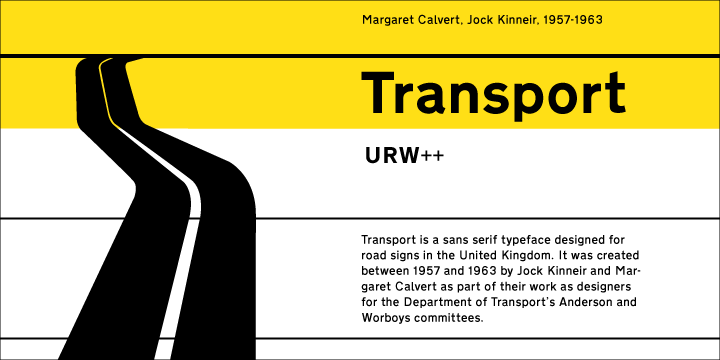
Transport Font is perfect for road signage systems, highway infrastructure, public transportation displays, airport wayfinding, municipal street signs, traffic management systems, government documentation, emergency services materials, urban planning projects, and navigation applications where maximum legibility and clarity are essential for public safety.
What makes Transport Font exciting is its scientifically designed letterforms that prioritize readability at high speeds and various viewing distances. This font features carefully calculated character spacing, optimized stroke weights, and distinctive letter shapes that ensure instant recognition even in challenging conditions. The extensive research behind its development makes it one of the most legible fonts ever created, with proven performance in real-world applications where clarity can be a matter of safety.
Transport Font family includes Light, Medium, and Heavy weights, each specifically calibrated for different viewing distances and applications. The family also features condensed variations for space-constrained situations, plus specialized versions for different sign types including motorway signs, local direction signs, and information boards. Each variant maintains optimal legibility while serving specific functional requirements.
Transport Font supports comprehensive character sets including numerals, punctuation, and symbols necessary for traffic signs and public information systems. The font's carefully engineered metrics ensure consistent spacing and alignment across different sizes and viewing conditions. Its robust construction maintains clarity from small informational text to large-scale highway signage.
The font's exceptional legibility makes it invaluable for accessibility-focused design, emergency communications, and public safety applications. Whether creating wayfinding systems, public information displays, or safety documentation, Transport Font delivers reliable performance that ensures clear communication and enhances public safety through superior typographic design.